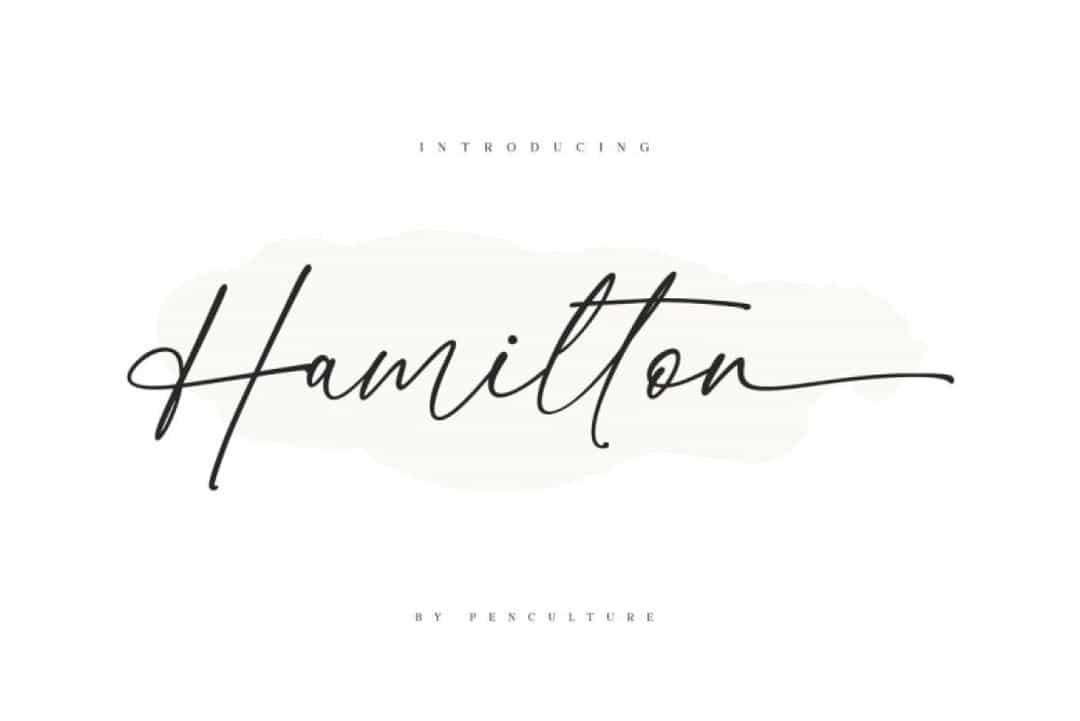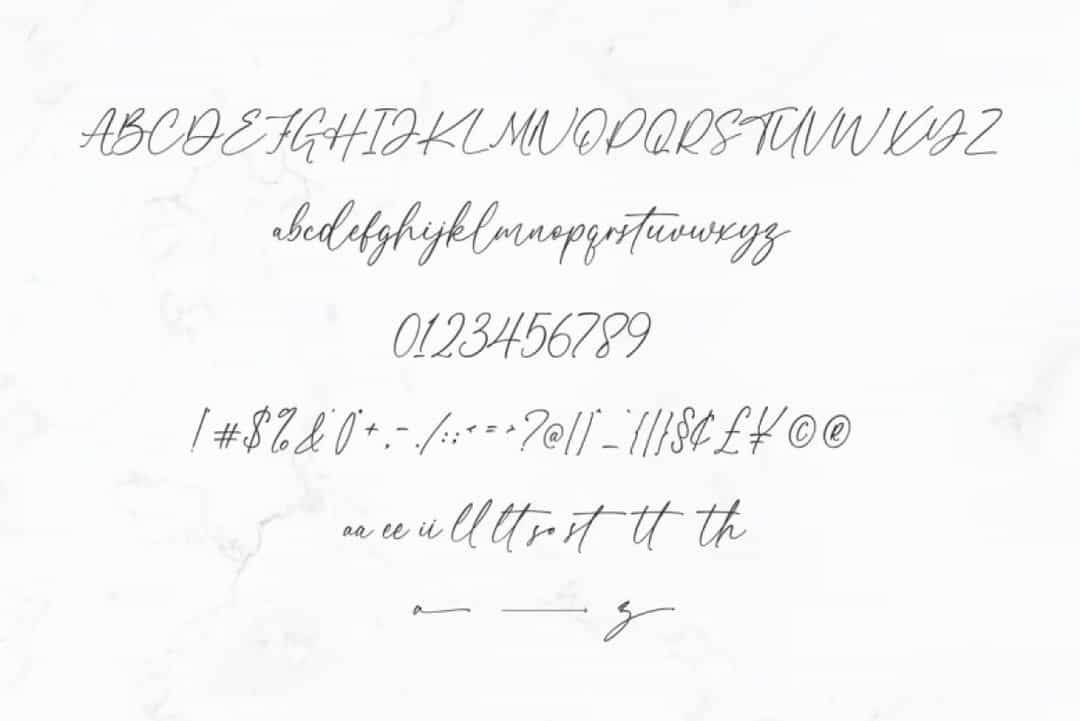
Discover Hamilton Font, part of the Calligraphy Handwritten collection—a versatile and unique font perfect for adding a personal touch to your projects. Download it for free and enjoy crafting designs with style, from invitations to social media posts. This font is available exclusively for personal use, giving you the freedom to create without limits. Unlock your creativity with Hamilton Font today!
Hamilton can be described as a modern stylish calligraphy font. Featuring gorgeous ligature and alternate, Hamilton offers elegant strokes suitable for wedding invitations, designs fashion invitations and much more.